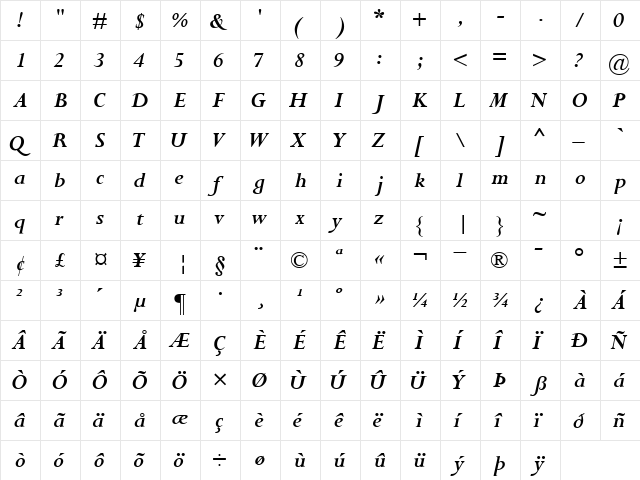
CompleatSSK Bold Italic Font Preview
CompleatSSK Bold Italic
Design Context for CompleatSSK Typeface
CompleatSSK offers clean, dependable letterforms without strong stylistic allegiance, making it a practical choice for designers who need flexibility. The dynamic lean of this cut emphasises speed and emphasis in any layout. The heavy weight commands attention and anchors typographic hierarchies.
Pro Tip: Use CompleatSSK for emphasis, pull quotes, and subheadings where its slanted energy can add rhythm to the layout.